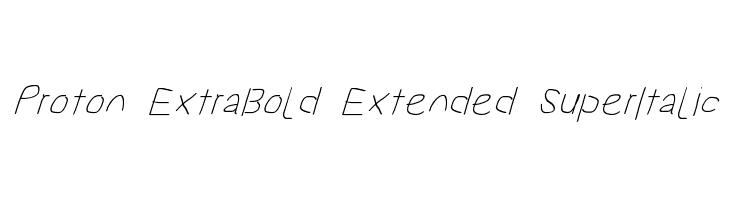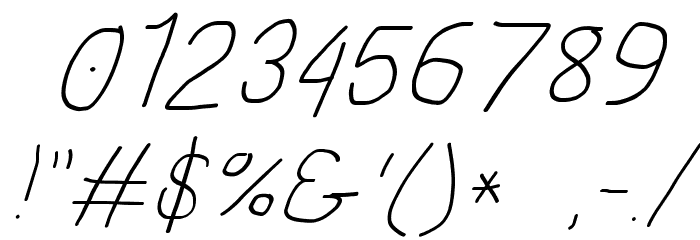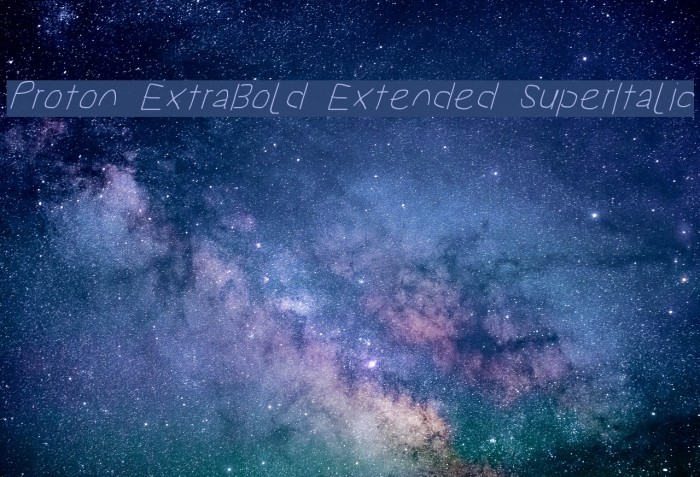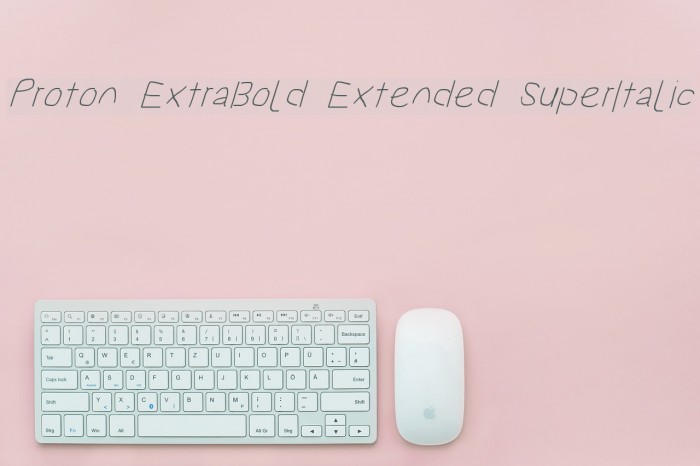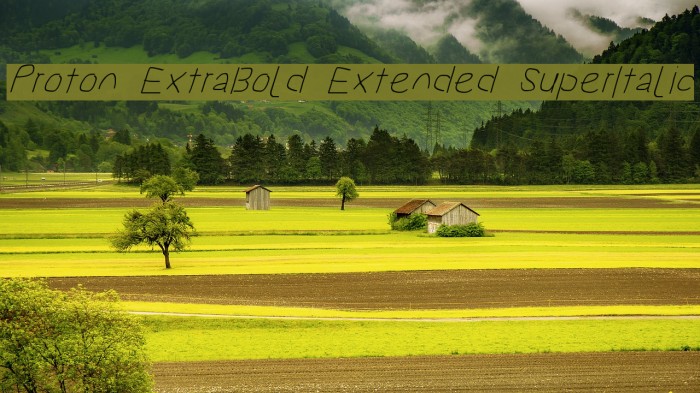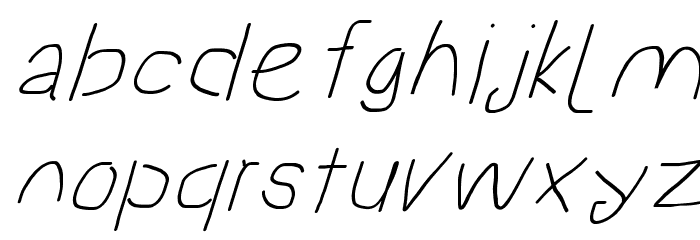
Proton ExtraBold Extended SuperItalic
This font exhibits a dynamic and energetic style with a pronounced slant, giving it a sense of motion and fluidity. The characters are elongated and slightly condensed, contributing to a sleek and modern appearance. The strokes are consistent in weight, providing a uniform look across all characters. The uppercase letters are bold and assertive, while the lowercase letters maintain a more delicate and refined touch. The numerals are clear and legible, matching the overall aesthetic of the font. Special characters are well-integrated, maintaining the font's cohesive style. This font's unique combination of boldness and elegance makes it versatile for various design applications.
A dynamic, slanted font with elongated characters and consistent stroke weight.
- Proposed Projects: Ideal for branding, advertising, and editorial design where a modern and energetic look is desired.
- Category: Script
- Width: Condensed
- Use Case: Headlines, Logos, Branding